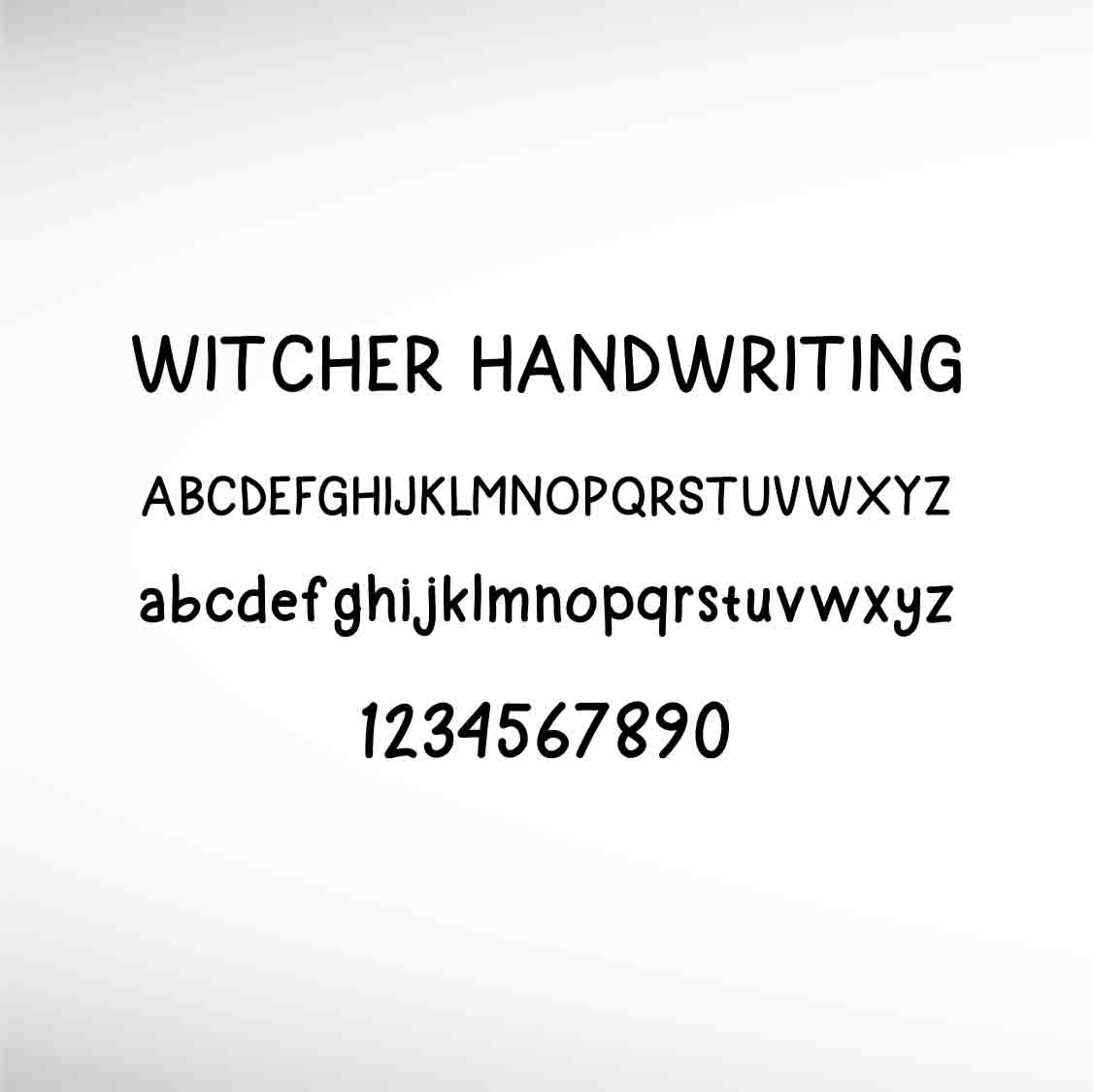
Witcher Handwriting by Azis Ihsan. Witcher Handwriting is the perfect font for all your fun designs. The font subfamily is Regular.
Designed by Azis Ihsan | OpenType Font